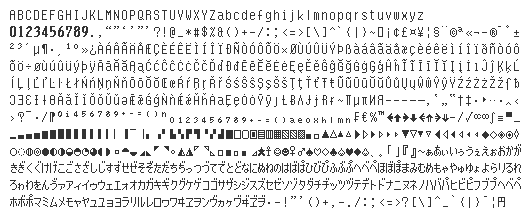
Quarlow is an easily readable sans-serif display pixel font recreation based on the original main text font appearing in the SNES video game Super Punch-Out!!, which was developed and released by Nintendo in 1994. This font includes the full set of Japanese hiragana and katakana characters appearing in the Japanese version of the game as well as in a hidden in-game name entry menu, and many additional characters, each one of them designed to match the spirit and style of the original font design. To recreate the original in-game appearance of this font, I recommend to choose font sizes that are multiples of 16pt and avoid any anti-aliasing or other font smoothing methods. Features: • 756 characters total • Monospaced sans-serif display typeface • Countless additional special characters, diacritic variants, etc. • Complete original Japanese hiragana and katakana character sets Please contact me for any commercial use of my fonts. Copyright © 2016 Caveras. All rights reserved. |